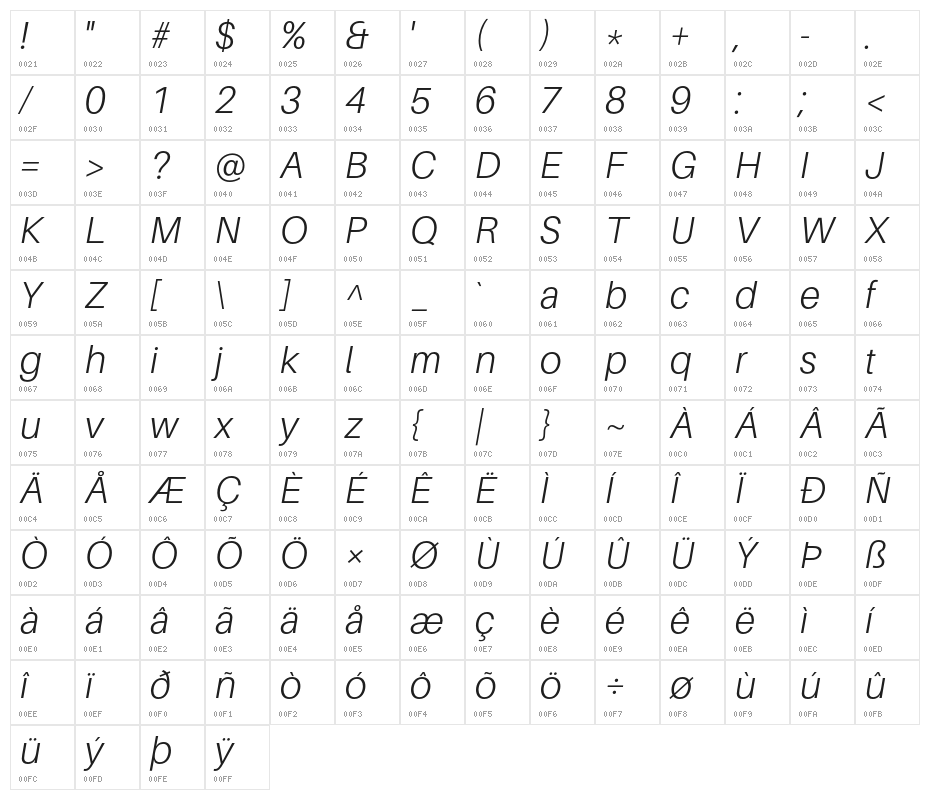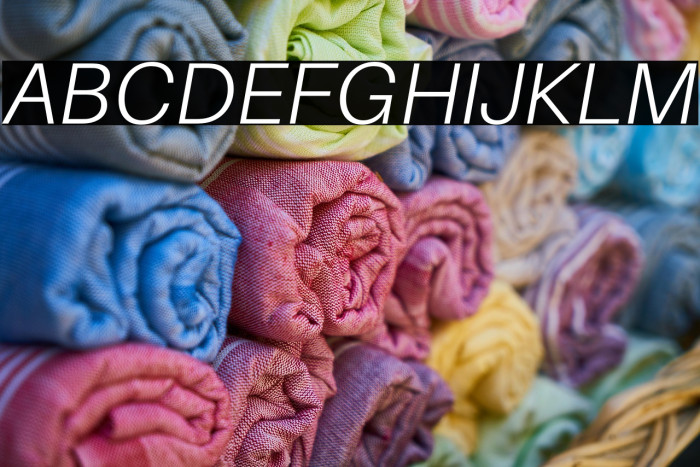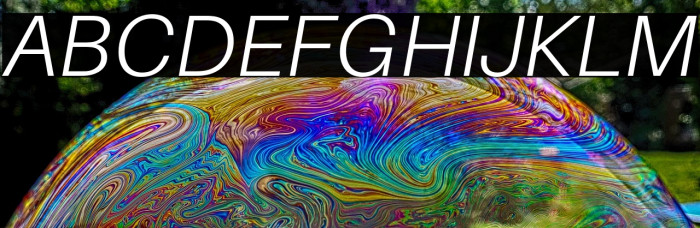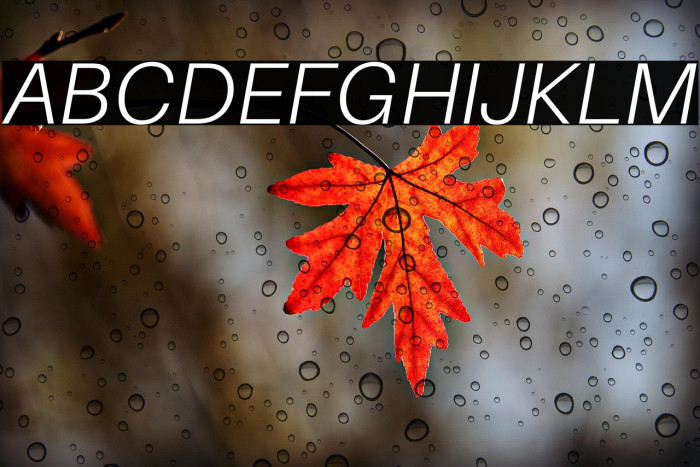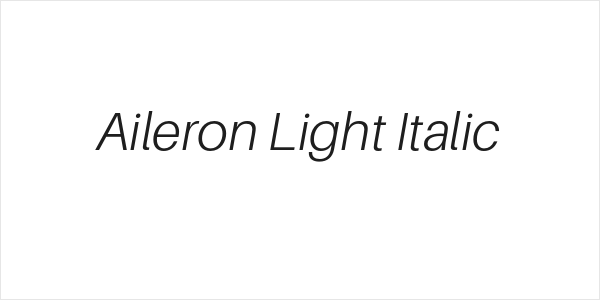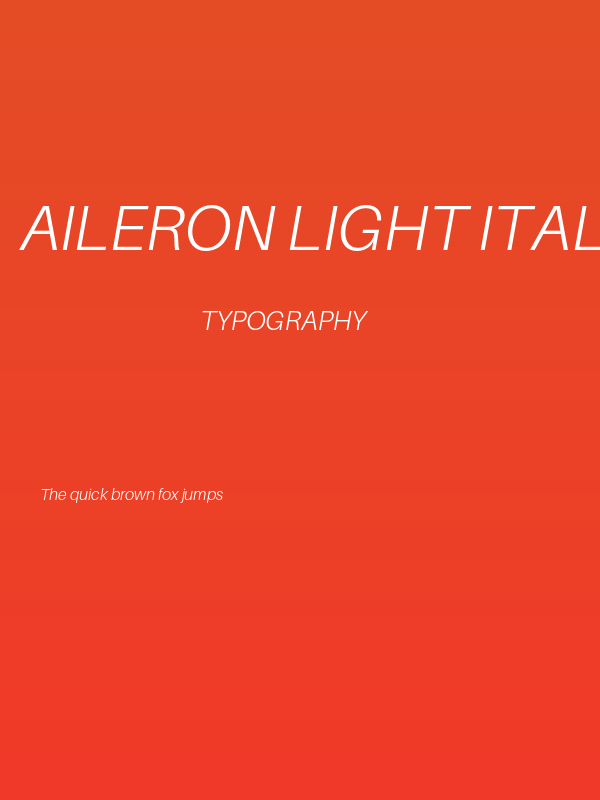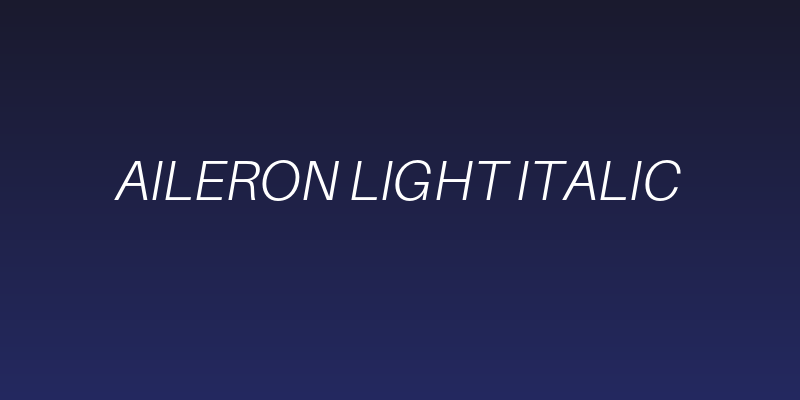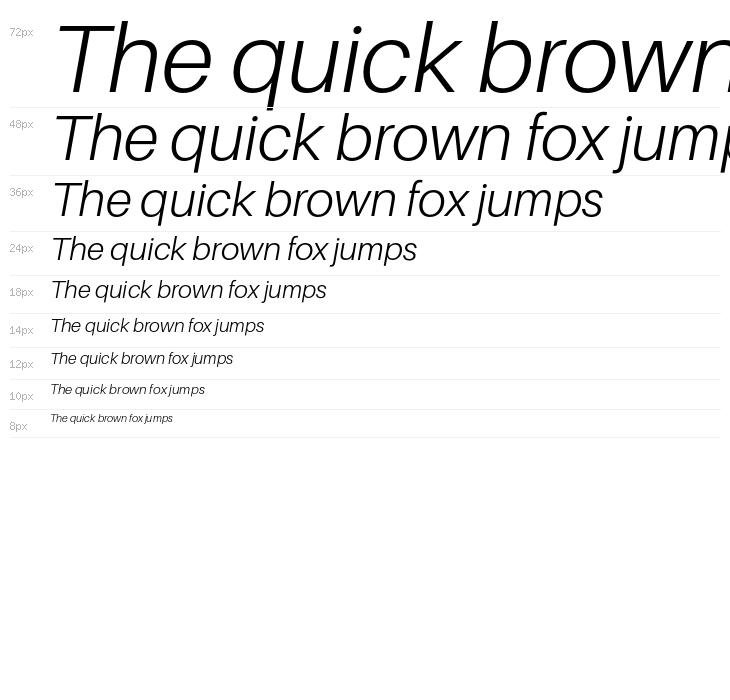
Aileron Light Italic Font
Aileron Light Italic Description
This font presents a sleek and modern aesthetic with its light and italicized form. The characters are elegantly slanted, providing a sense of motion and fluidity. The strokes are thin and consistent, contributing to a clean and minimalist appearance. The uppercase and lowercase letters maintain a harmonious balance, while the numerals and special characters are crafted with precision. This font's design is versatile, making it suitable for various applications where a contemporary and sophisticated look is desired.
Proposed ProjectsIdeal for use in modern branding, editorial design, digital interfaces, and minimalist posters.